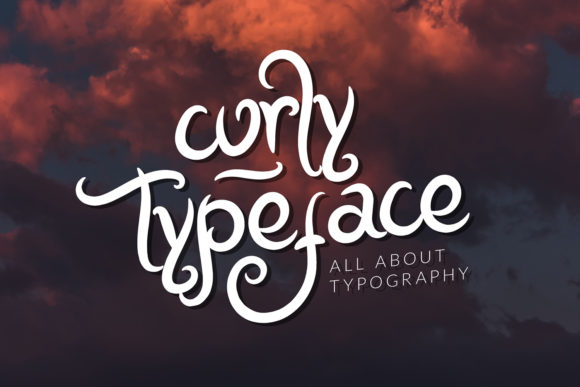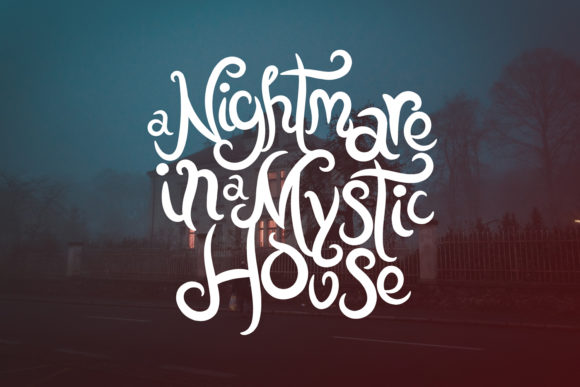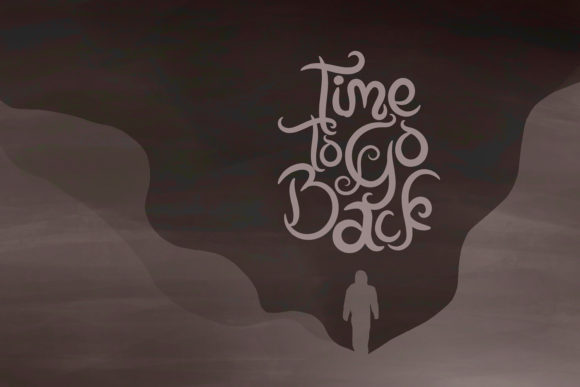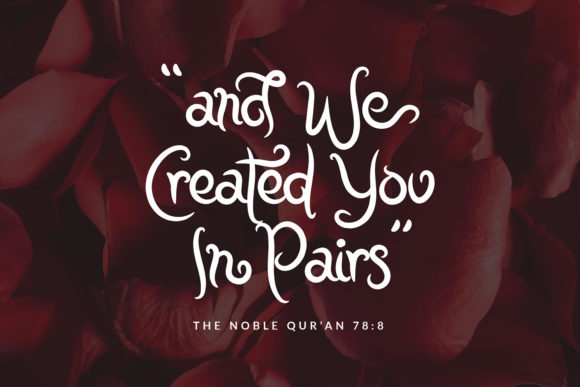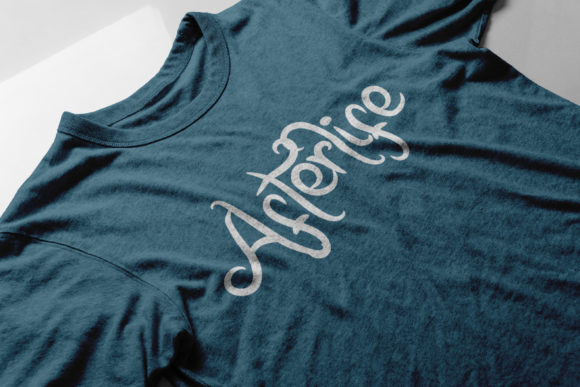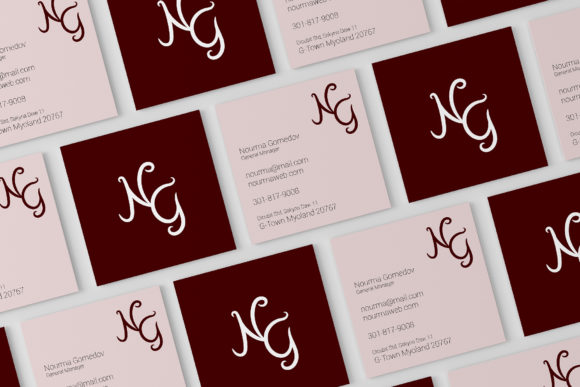
Introduction to Megilan Font
Megilan is a unique and interesting handwritten font.
Incredibly versatile, this font will fit a wide pool of designs Fall in love with its incredibly stylish look and use it to create spectacular designs.
Megilan Font offers exceptional quality and versatility, making it a valuable addition to your design toolkit. Whether you’re creating for personal projects or commercial use, Megilan Font delivers professional results.